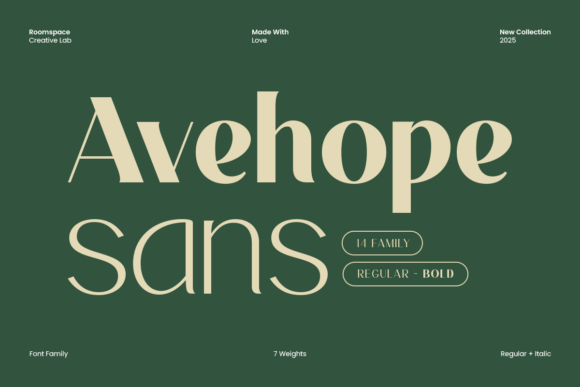
Avehope Sans Font: Elevate Your Design with Modern Geometric Elegance
In the world of typography, fonts play a crucial role in conveying messages, setting tones, and creating visual identities. For designers and crafters looking for a modern, versatile, and elegant sans-serif font, Avehope Sans Font is an exceptional choice. This comprehensive font family is designed to cater to a wide range of projects, from professional branding and packaging to editorial layouts and digital content.
What is Avehope Sans Font?
Avehope Sans Font Family is a contemporary geometric sans-serif typeface, meticulously crafted for clarity and versatility. It consists of 14 fonts, comprising 7 weights and their corresponding italic versions. This extensive range allows designers to achieve a perfect balance between elegance and functionality, making it suitable for various applications, including print, digital, and creative projects.
Key Features of Avehope Sans Font
- Modern Geometric Design: Avehope Sans boasts a clean, geometric design that ensures excellent readability across different mediums.
- Versatility: With 14 fonts (7 weights + Italic), designers have the flexibility to create a wide range of visual expressions, from subtle and elegant to bold and impactful.
- Perfect for Branding: The font’s professional and balanced design makes it ideal for creating consistent visual branding across various platforms.
- Multipurpose: Whether it’s minimalist packaging, editorial layouts, or digital content, Avehope Sans Font adapts seamlessly to different design needs.
Applications of Avehope Sans Font
The versatility of Avehope Sans Font makes it an excellent choice for a multitude of design projects. Here are some of the areas where this font truly shines:
- Branding and Logo Design: Create a lasting impression with a professional and elegant font that communicates your brand’s values and personality.
- Packaging Design: Elevate your product packaging with a clean and modern aesthetic that appeals to contemporary consumers.
- Editorial and Magazine Design: Use Avehope Sans to create visually appealing editorial layouts that are both engaging and easy to read.
- Digital Content: Enhance your website, blog, or social media graphics with a font that offers excellent readability and a professional look.
Why Choose Avehope Sans Font?
In a sea of fonts, Avehope Sans stands out for several reasons:
- Professional Balance: It strikes the perfect balance between elegance and functionality, making it suitable for a wide range of projects.
- Readability: The font’s geometric design ensures excellent readability, even at smaller sizes.
- Flexibility: With multiple weights and styles, Avehope Sans offers the flexibility to create a cohesive visual identity across different platforms.
Avehope Sans Font is a powerful tool for designers and crafters looking to elevate their projects with a modern, geometric sans-serif typeface. Its versatility, elegance, and professional balance make it an excellent choice for a wide range of applications, from branding and packaging to editorial and digital content. By incorporating Avehope Sans into your design repertoire, you’ll be able to create visually stunning and effective designs that leave a lasting impression.
Whether you’re working on a personal project or a client’s, Avehope Sans Font is sure to deliver the quality and versatility you need to succeed. Explore the possibilities of Avehope Sans today and discover how it can transform your designs.